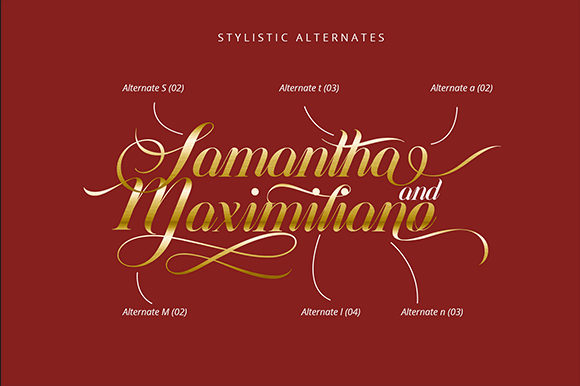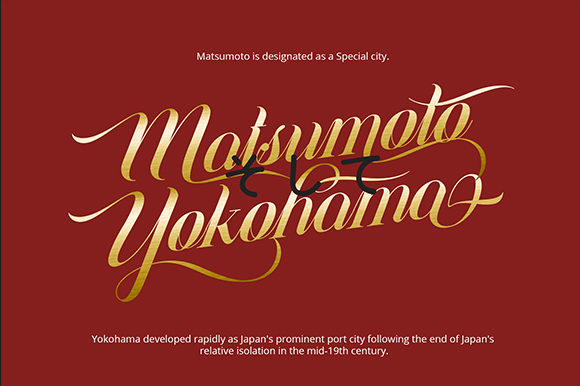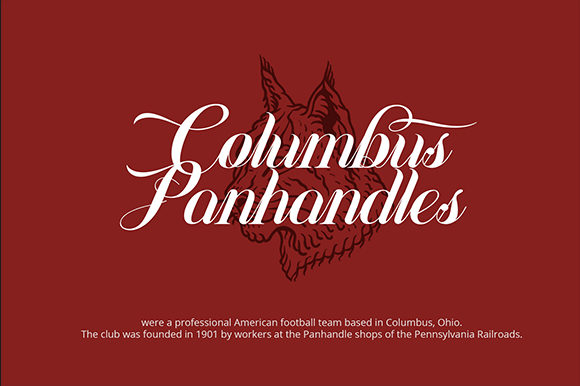
The Elegant Charm of Alqaisumah Font
Have you ever been in the middle of a design project, and suddenly, you’re stuck on finding the perfect font? I recall a recent experience where I was working on a wedding invitation design, and my client specifically asked for a font that exudes elegance and charm. After hours of searching, I stumbled upon the Alqaisumah Font, and it instantly became the perfect fit. In this article, I’ll share my experience with this beautiful font, its features, and how to make the most of it in your designs.
A Personal Review of Alqaisumah Font
• ✨ Elegant and charming aesthetic, perfect for wedding invitations, thank you cards, and greeting cards
• ✅ PUA encoded, making it easy to access all glyphs and swashes
• 💫 Works beautifully on logos, business cards, and other designs that require a handwritten touch
• 🎨 Highly versatile, suitable for a wide range of creative projects
While Alqaisumah Font is an excellent choice, there are a few minor quirks to be aware of:
• 🤔 Some users might find the font’s elegance and cursive nature a bit challenging to pair with other fonts
• ⚠️ As with any script font, it’s essential to use it in moderation and ensure it aligns with your project’s overall tone
The Backstory of Alqaisumah Font
The Alqaisumah Font is a creation of a talented type designer who aimed to craft a font that exudes elegance and charm. Inspired by traditional calligraphy, this font is designed to bring a touch of sophistication to any design project. While the designer’s exact story might be unknown, their work is undoubtedly a testament to the power of typography in elevating creative projects.
A: PUA (Private Use Area) encoding allows font users to access a wide range of glyphs and swashes, making it easier to create unique and creative designs.
Q: How do I pair Alqaisumah Font with other fonts?
A: Pairing Alqaisumah Font with other fonts requires some experimentation. Try combining it with serif or sans-serif fonts to create a harmonious contrast and balance in your design.